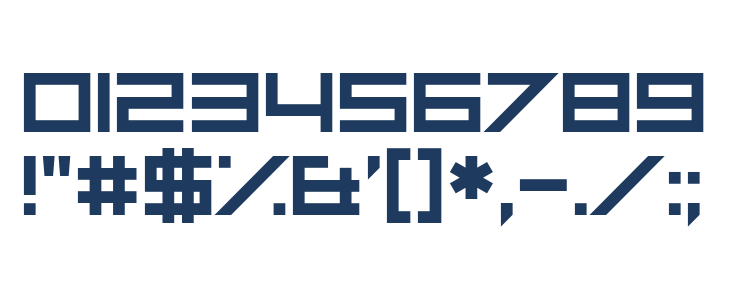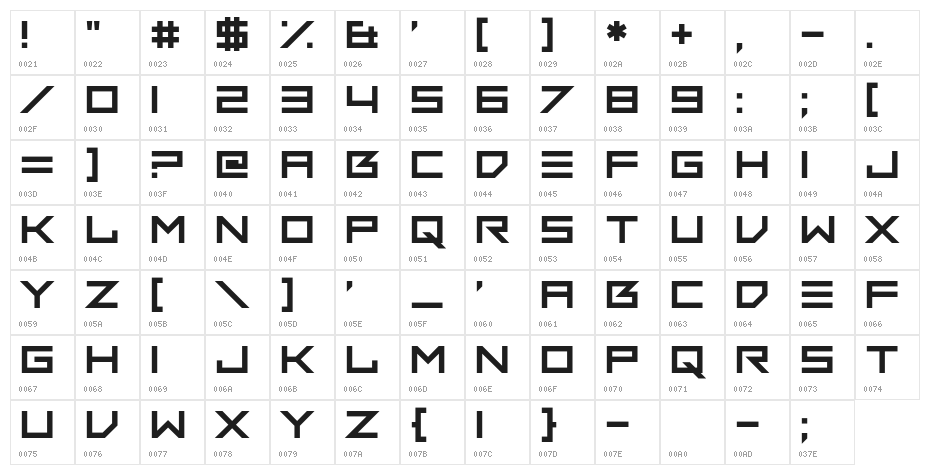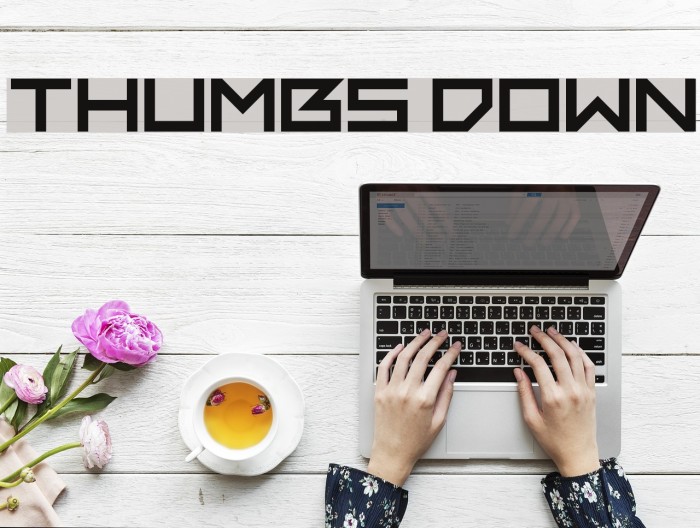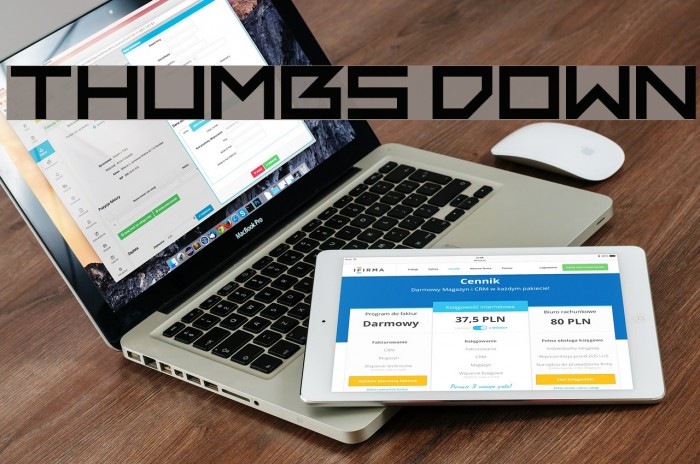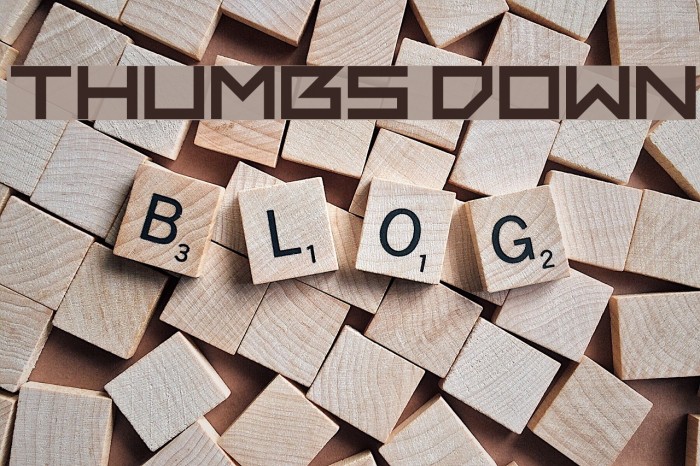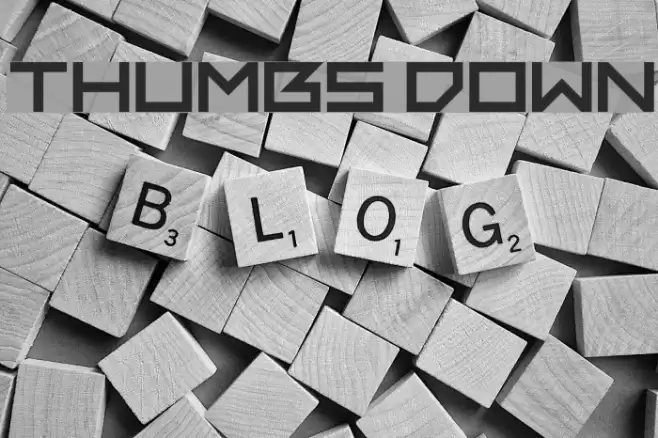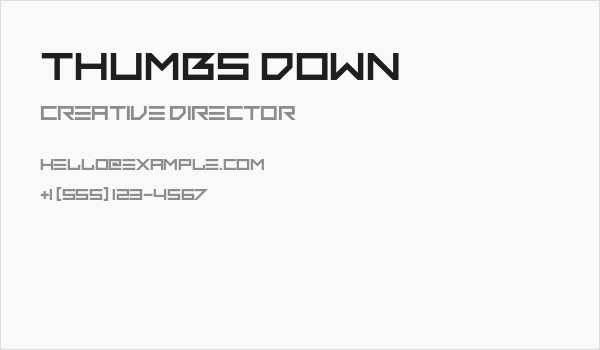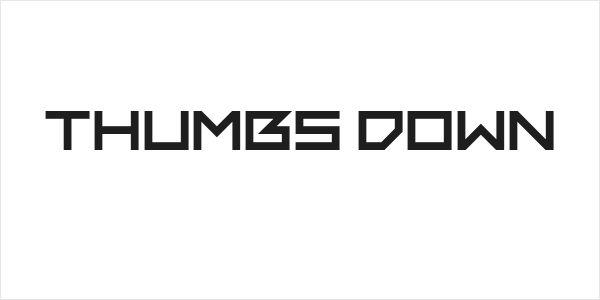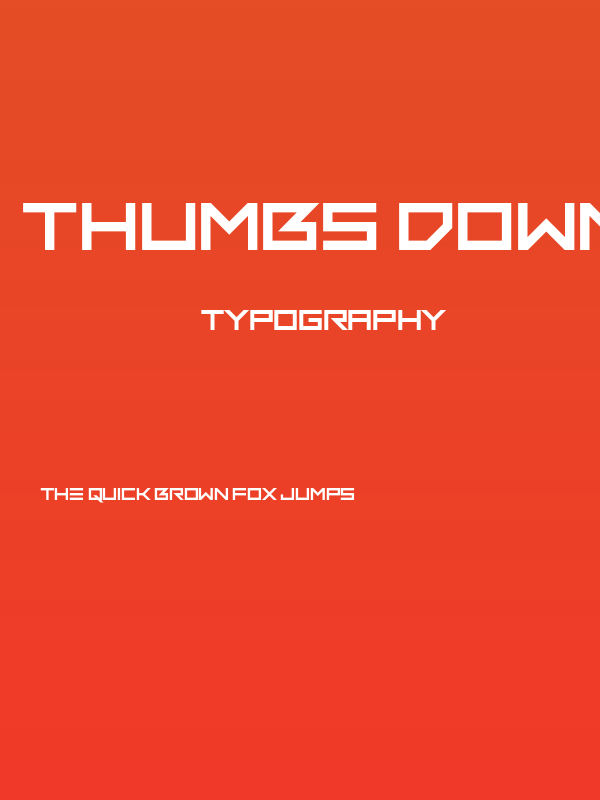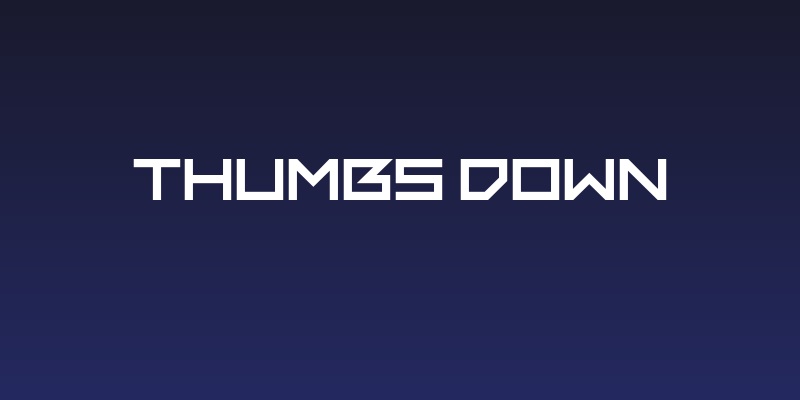
This font features a bold, geometric design with sharp angles and a futuristic aesthetic. The uppercase letters are constructed with straight lines and angular cuts, giving them a modern, tech-inspired look. The numerals and special characters maintain this style, ensuring consistency across the character set. The font's design is highly stylized, making it suitable for projects that require a strong, impactful visual presence. The uniform stroke width and lack of curves contribute to its distinctive, edgy appearance.
| Use Case | Logos, Headlines |
| Proposed Projects | Ideal for technology branding, sci-fi posters, video game titles, and modern logo designs. |